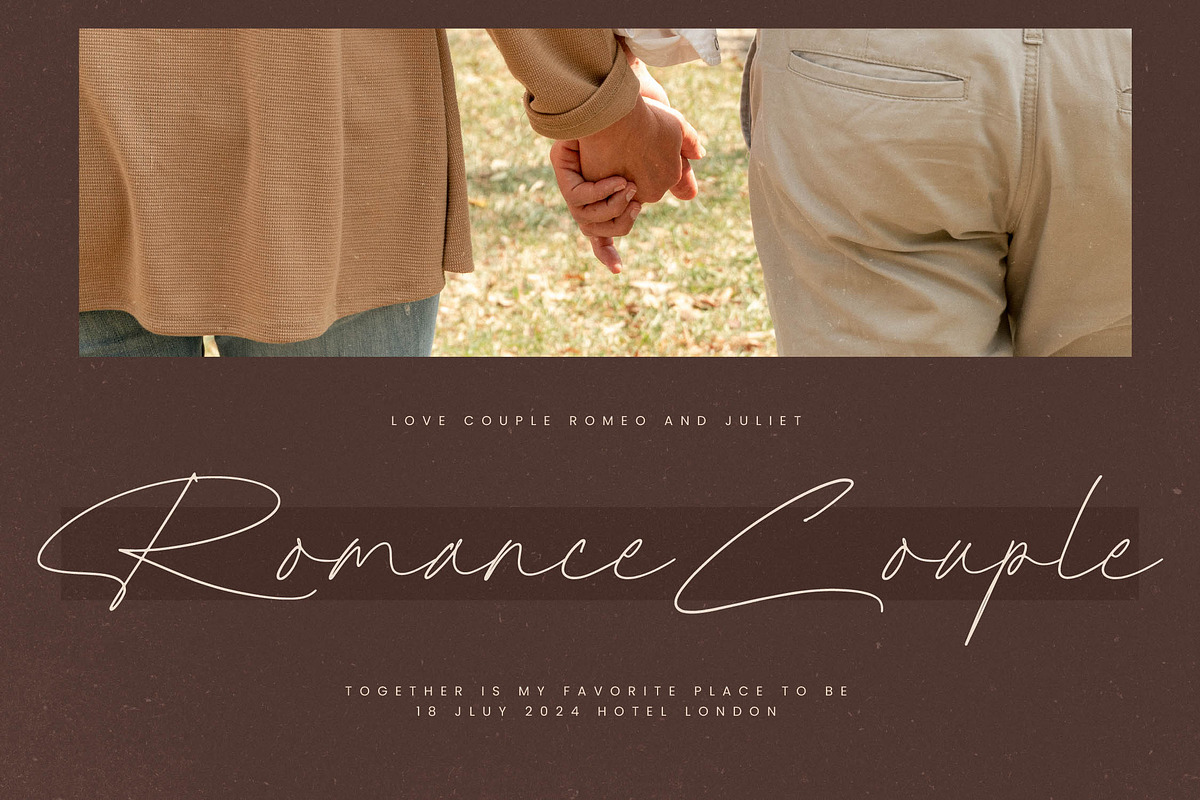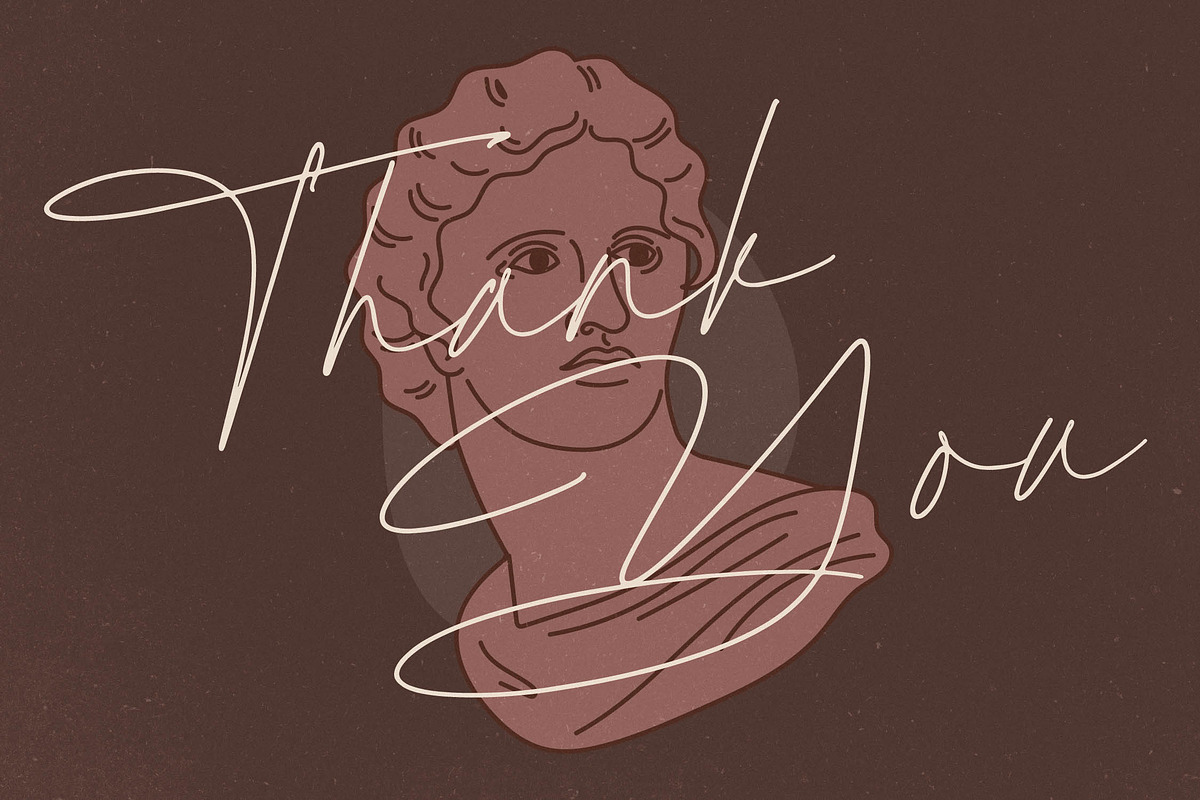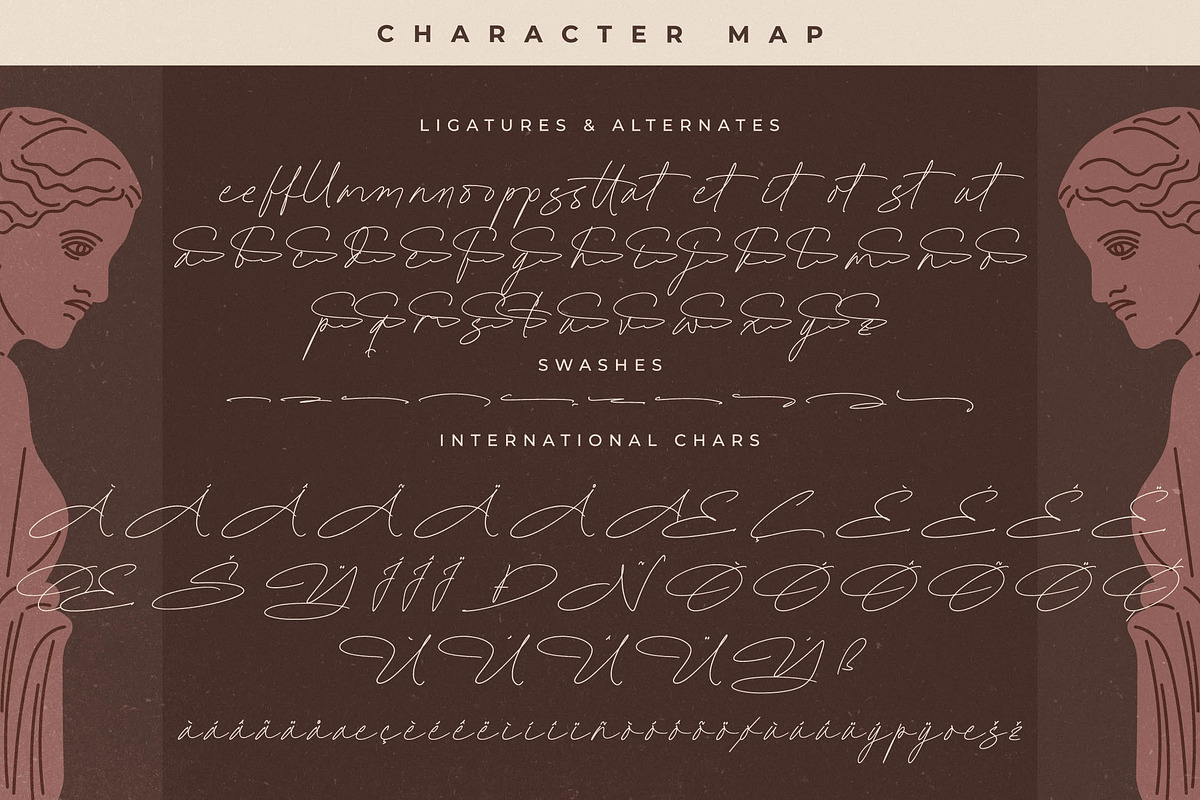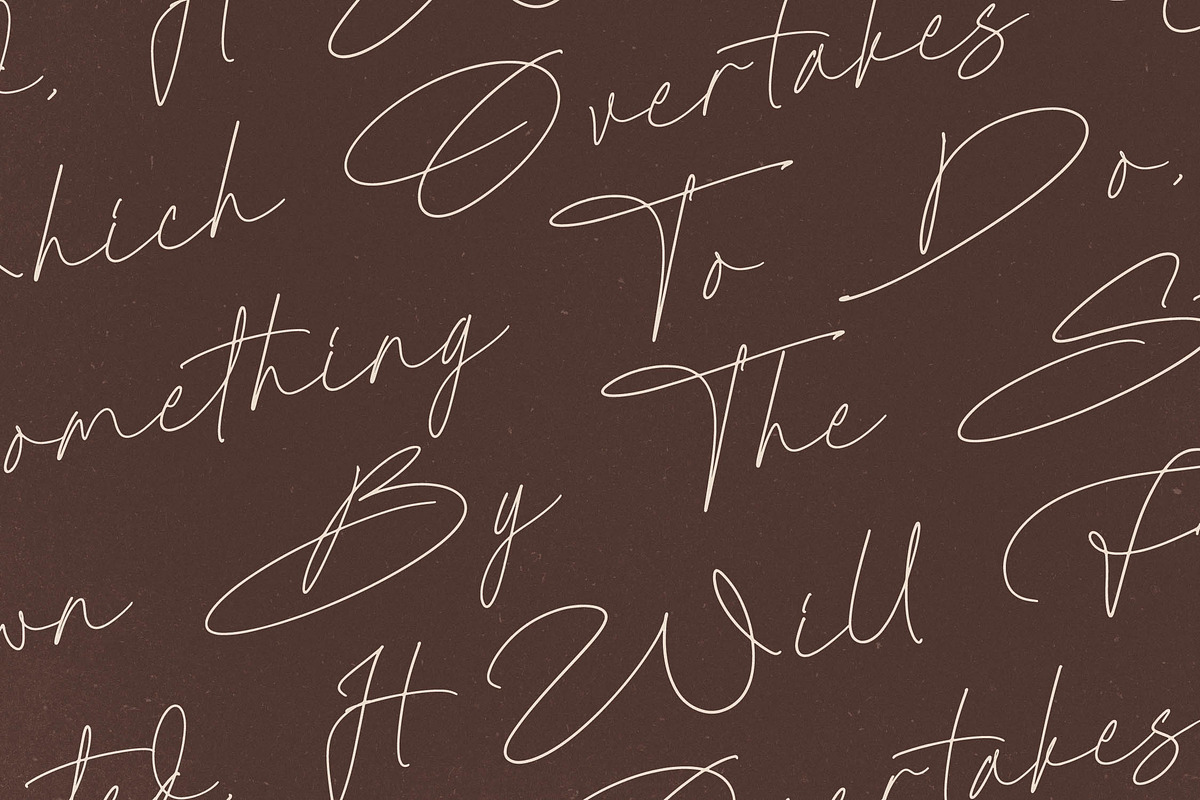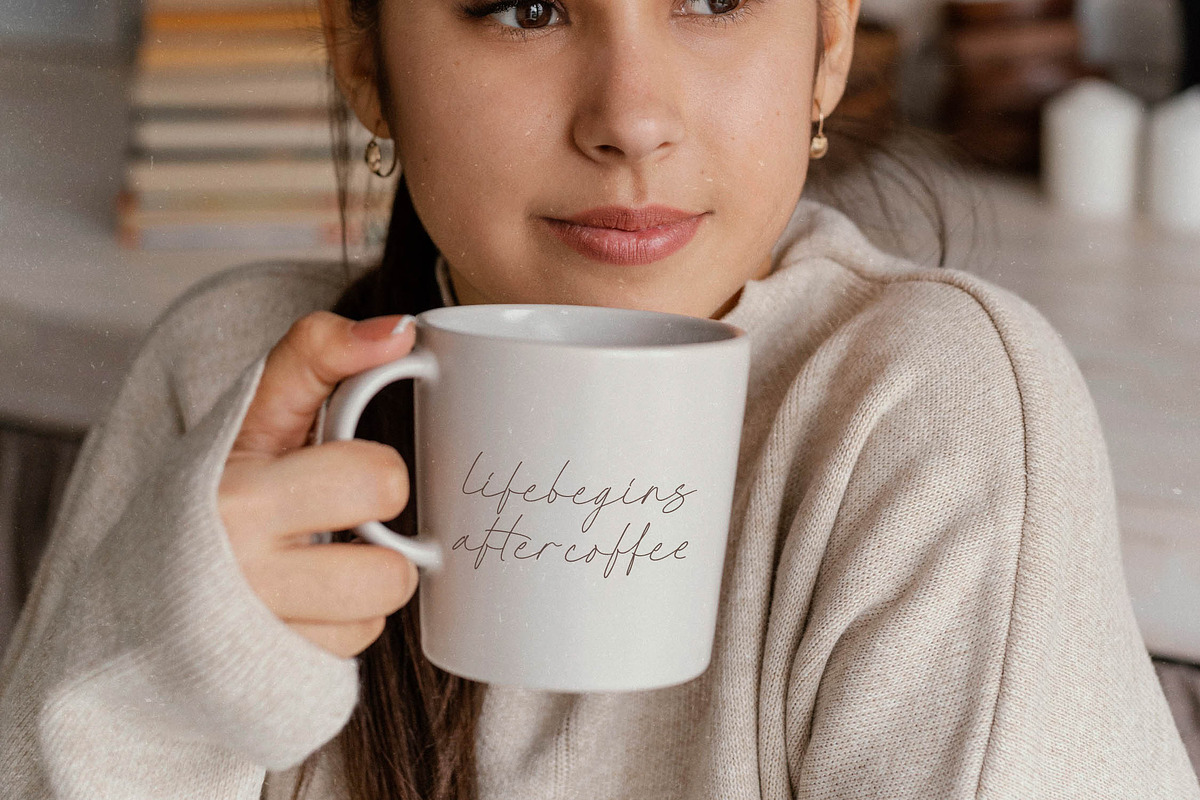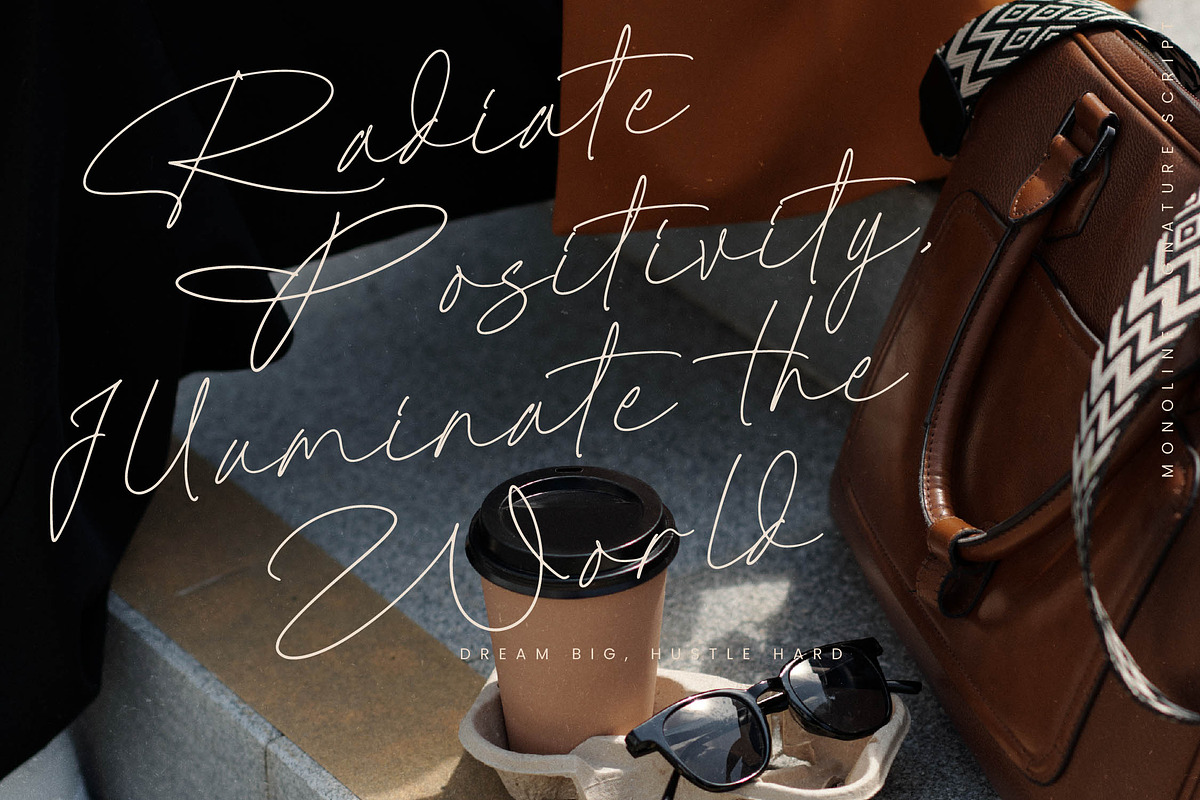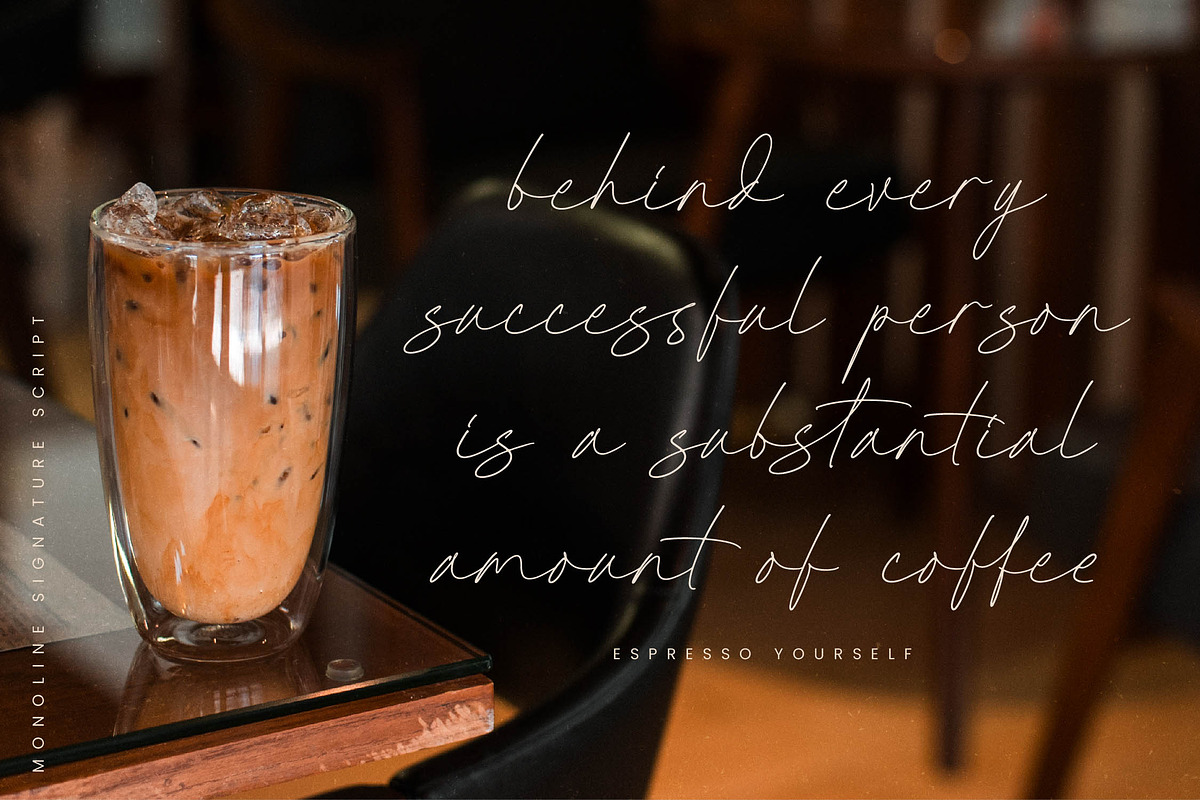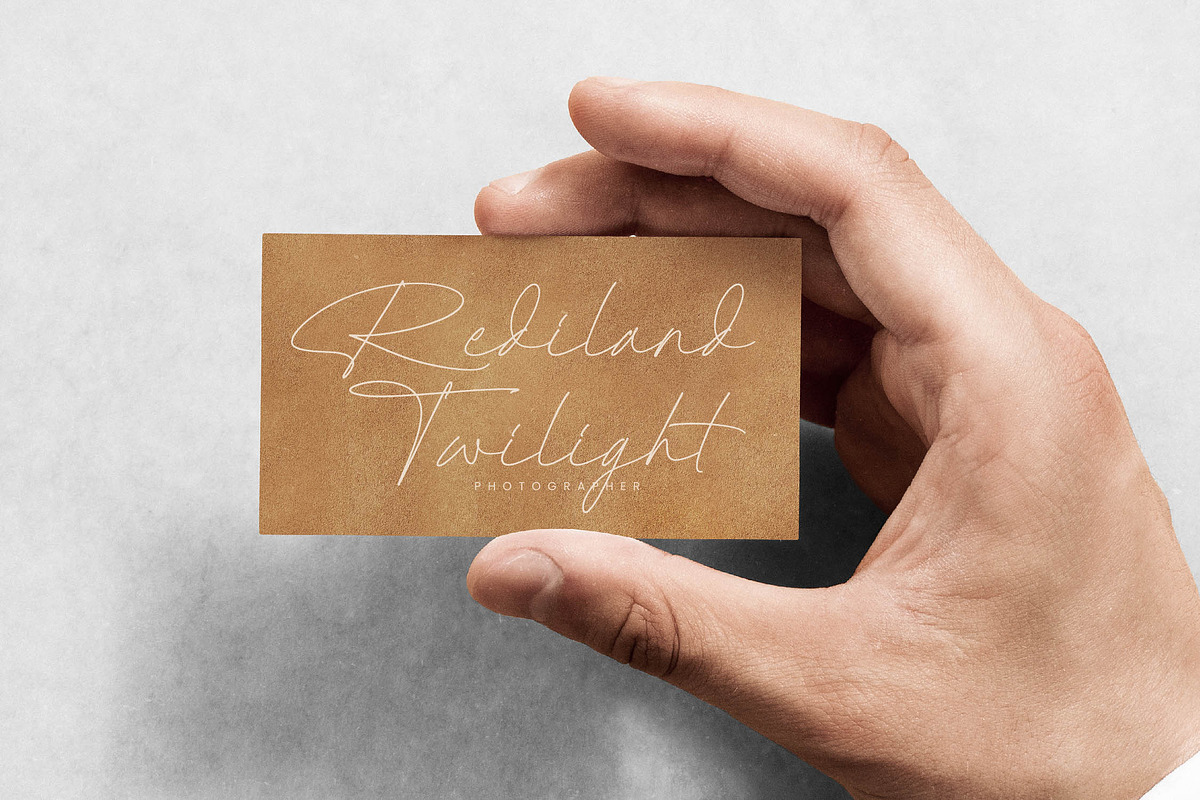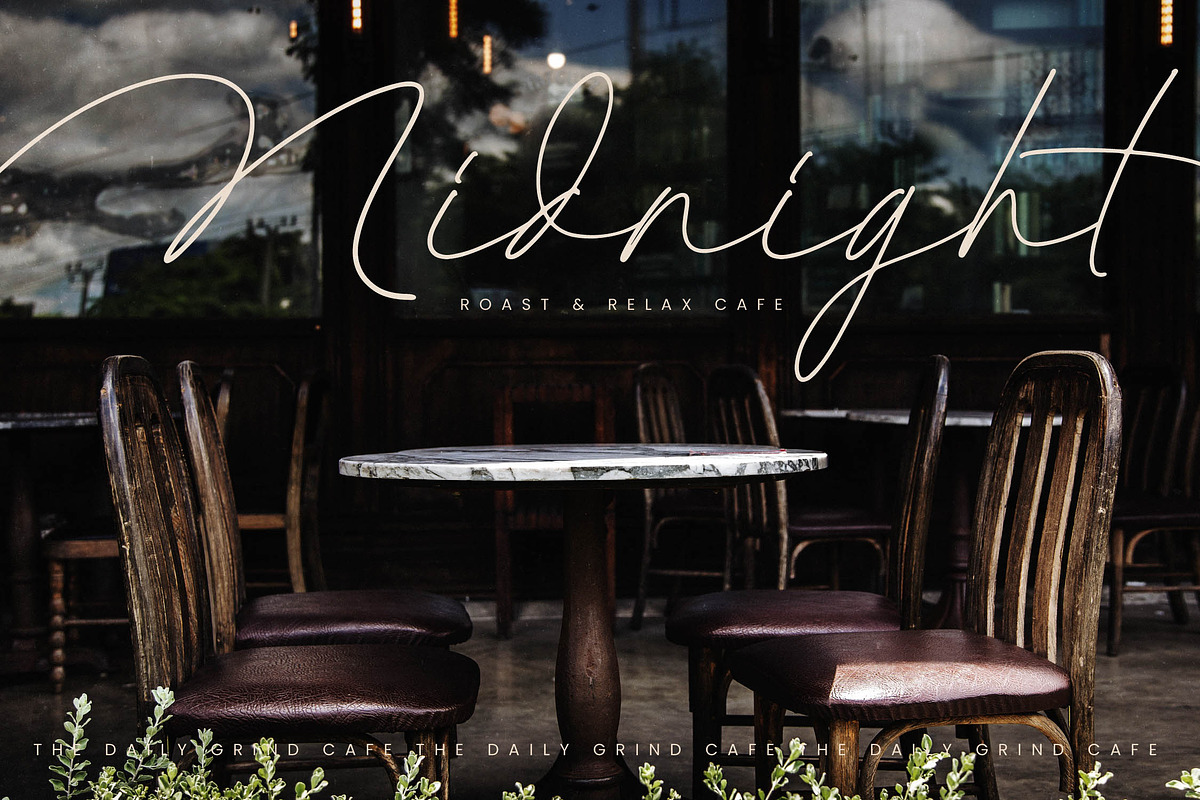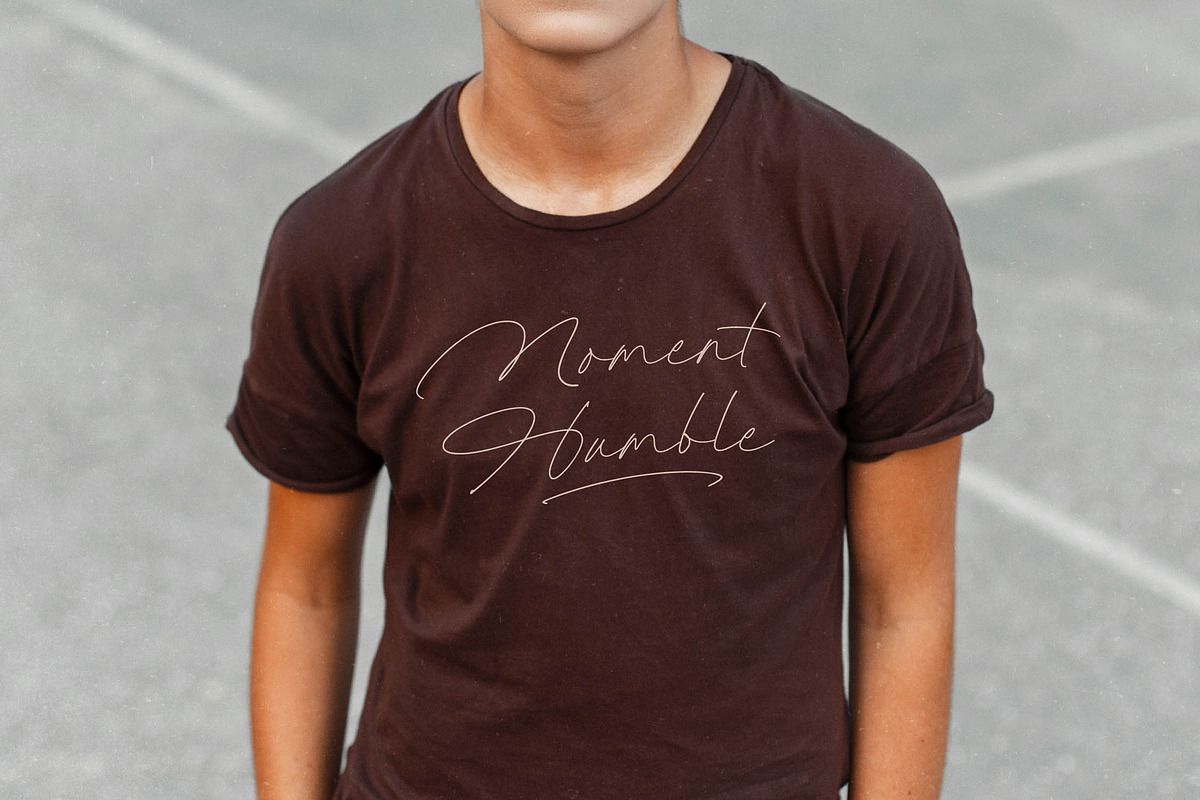
Radionte Heritage Monoline Signature
Radionte Heritage – Monoline Signature Script , from Letterena, is a Luxury Script font, suitable for any projects such as: logos, branding projects, homeware designs, product packaging, mugs, quotes, posters, shopping bags, t-shirts, book covers, name card, invitation cards, greeting cards, label, photography, watermark, special events, and all your other luxury and beautiful projects that need a Luxury Script taste.